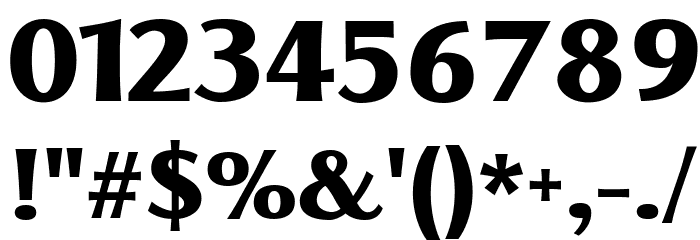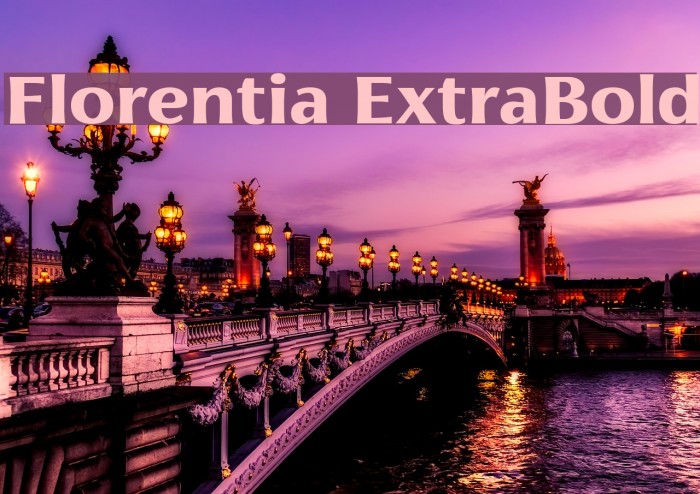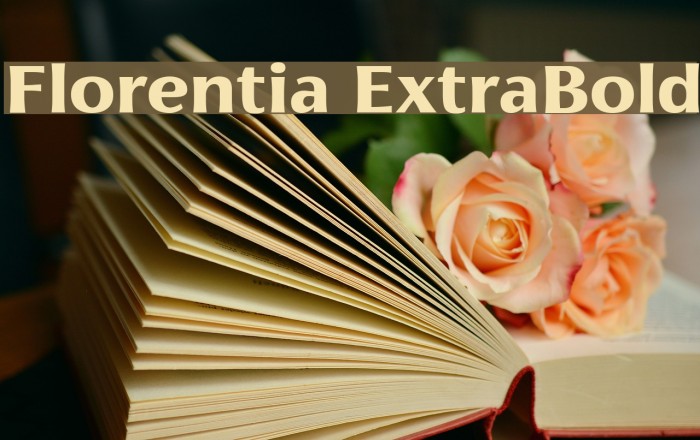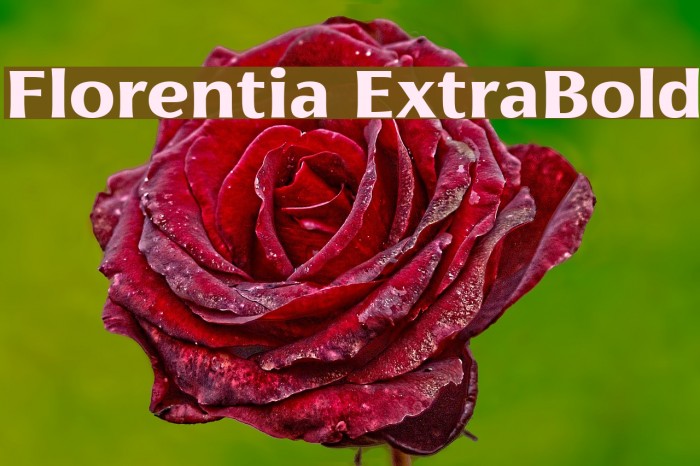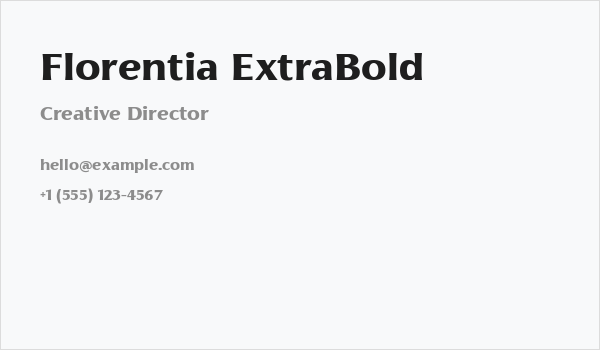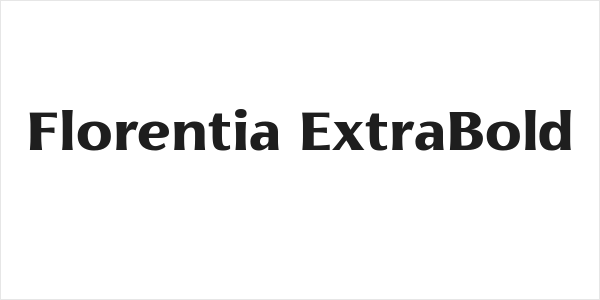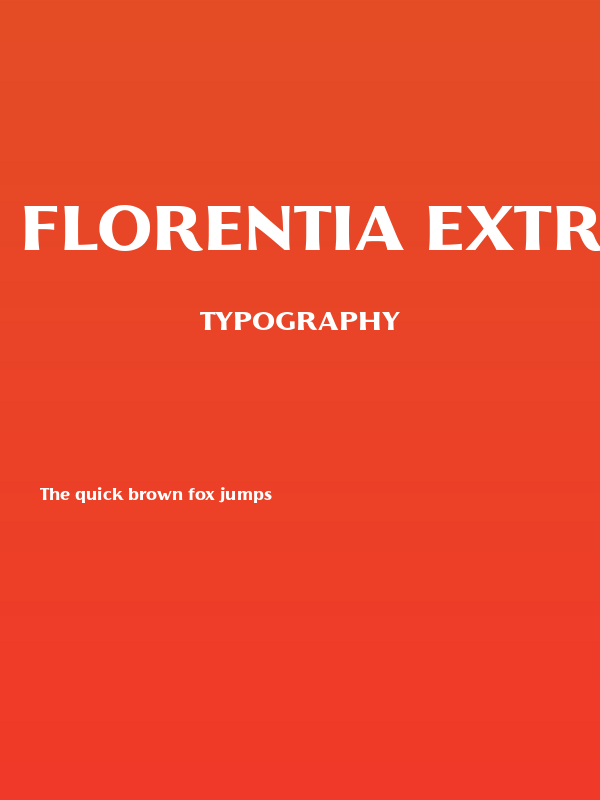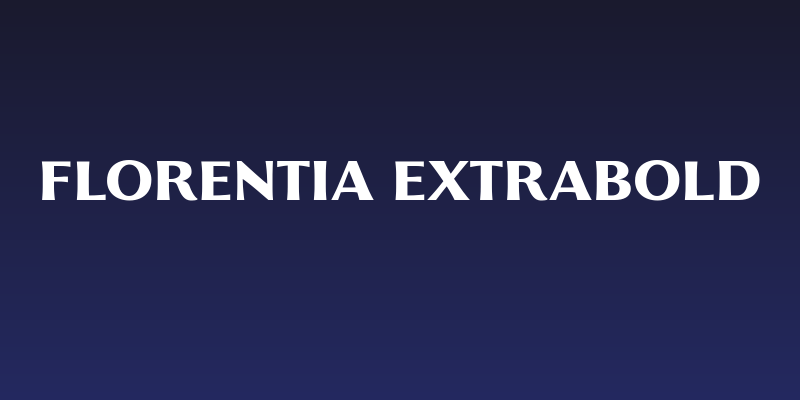
Florentia ExtraBold Font
Florentia ExtraBold Description
This font exhibits a bold and commanding presence with its extra-bold weight, making it ideal for impactful headlines and titles. The characters are well-defined with a modern serif style, featuring strong vertical lines and subtle curves that add a touch of elegance. The uppercase letters are particularly striking, while the lowercase letters maintain readability with a consistent stroke width. The numerals are clear and balanced, ensuring they stand out in any context. Special characters are thoughtfully designed, maintaining the overall aesthetic of the font.
| Proposed Projects | Ideal for branding, advertising, magazine headlines, and editorial design. |